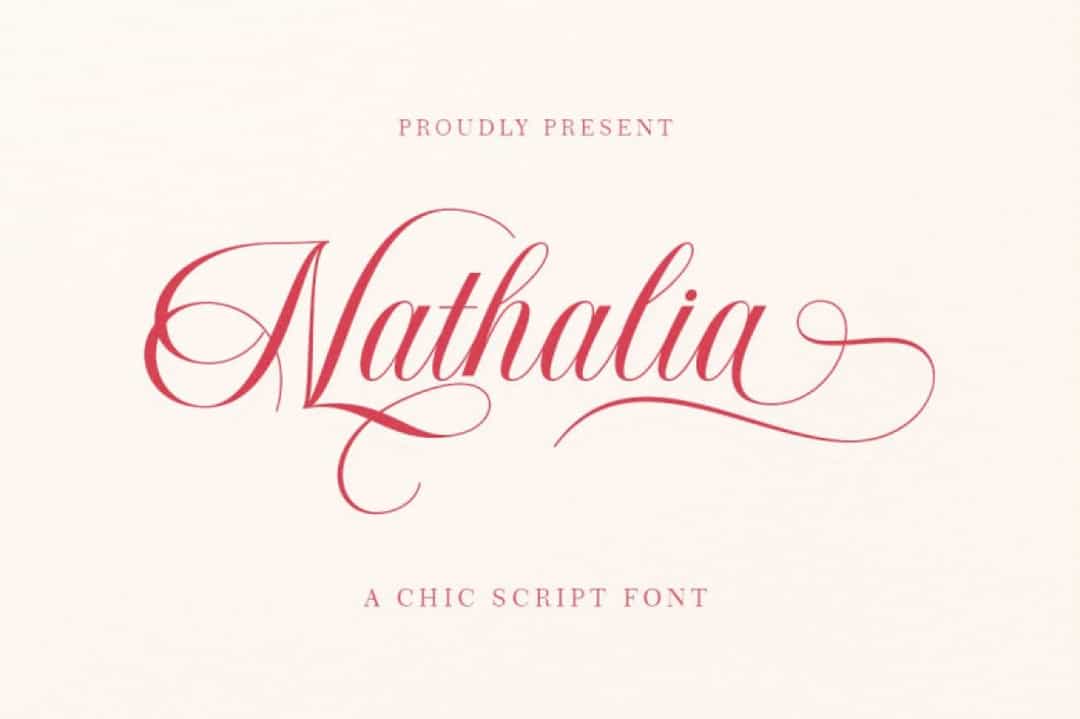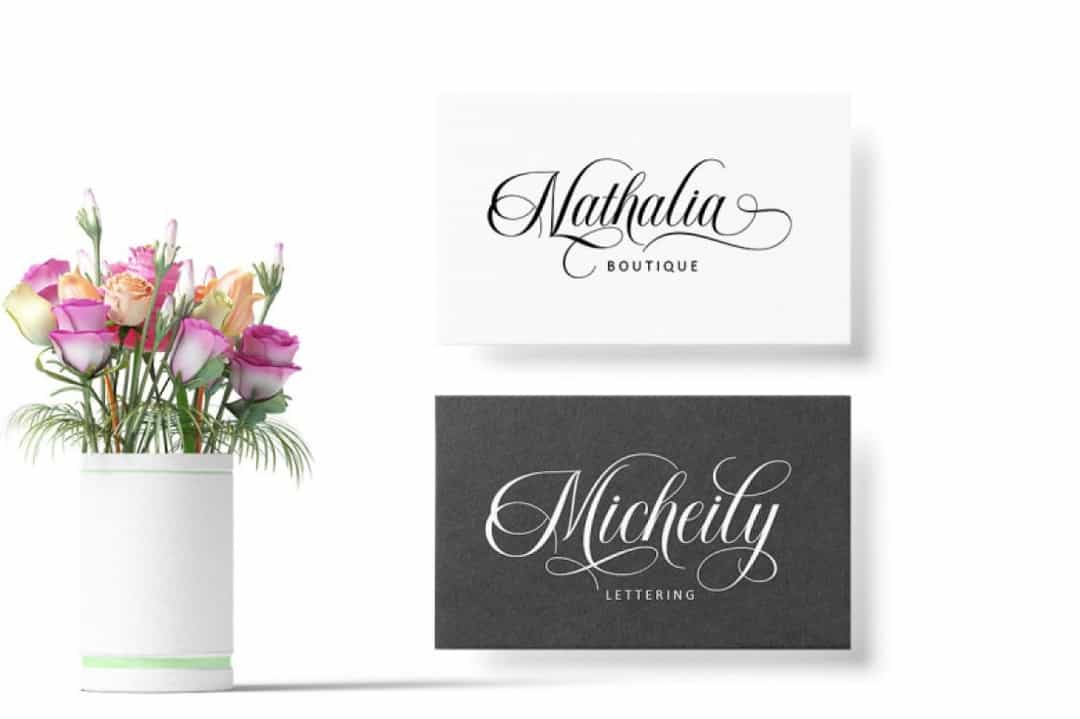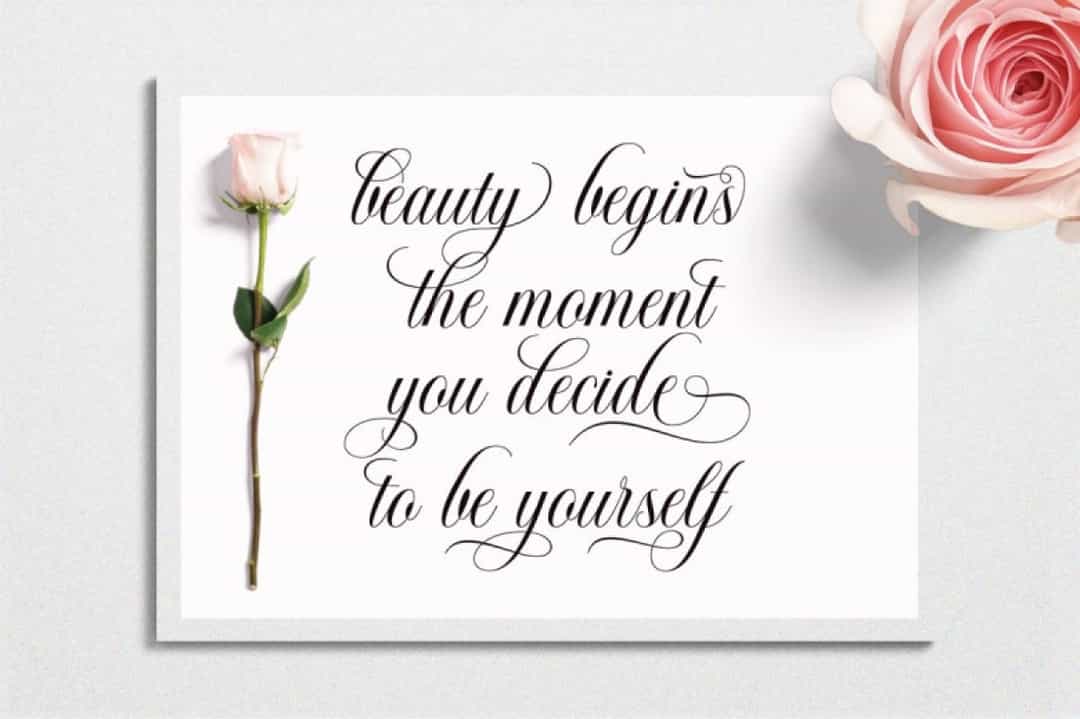
Nathalia is a formal calligraphy style script font with several styles available, including Regular. The font features informal elegance with its elegant swashes. Nathalia can be used in numerous contexts including logos packaging for products wedding invitations headlines branding signage labels signature books posters book covers quotes posters signature books posters Nathalia supports OpenType Stylized alternates including ligatures logos as well as support for most Western Languages which makes this font versatile enough for use across numerous industries and applications.